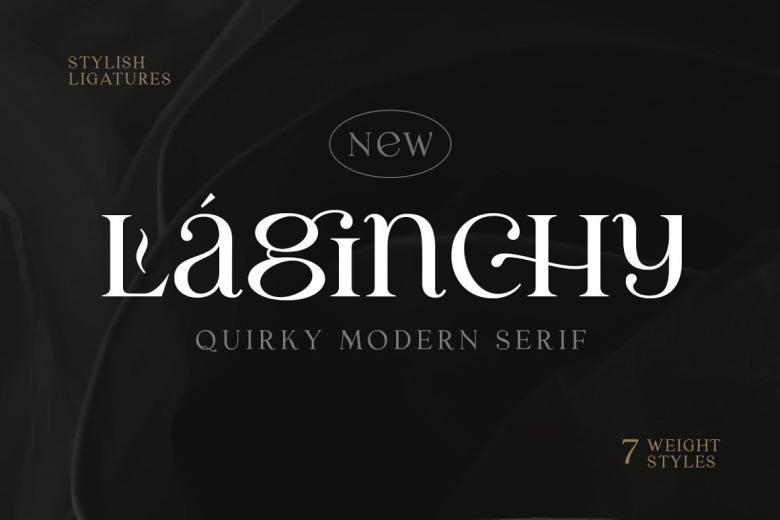
Laginchy Font
Laginchy Serif Font is a playful yet elegant serif. It’s designed and shared by saridezra.  The subtle curves of each letter make it very unique. Fall in love with its incredibly versatile style and use it to create gorgeous wedding invitations, beautiful stationary art, eye-catching social media posts, and much more!